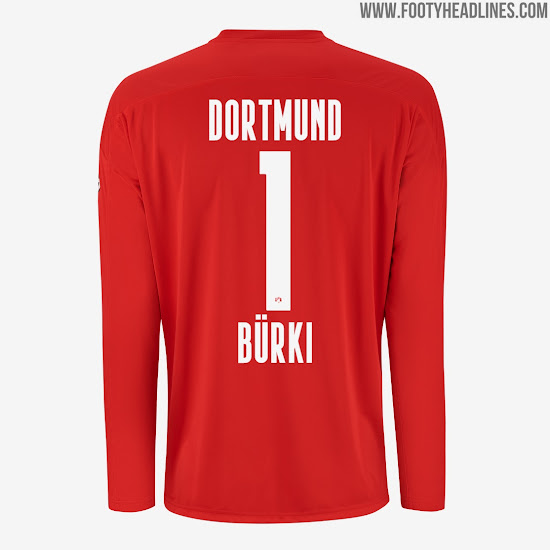
Puma Borussia Dortmund 20-21 Kit Font Released
It seems like that most Puma teams will have the same typeface in 2020 - the new typeface of the Dortmund 2020-21 kit font indicates that for us.
Puma Dortmund 20-21 Font
The font used for the Dortmund 20-21 kit is the same as the one of Italy and other Puma national teams, apart from some minor details.
The Dortmund 2020-21 font comes without any further details and effect but just with what appears to be a small BVB crest on the bottom.
The new typeface will be used by Dortmund will be used in all matches and competitions in the 2020-21 season - Bundesliga, Champions League & DFB Pokal.
We also expect that the typeface will be used for all other BVB kits in the 2020-2021 season.